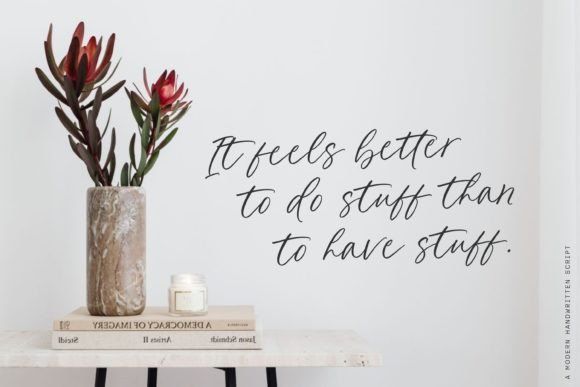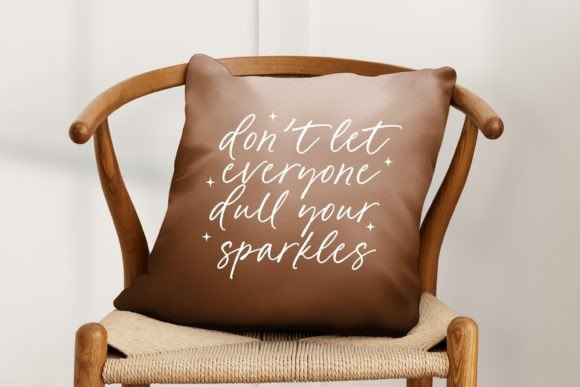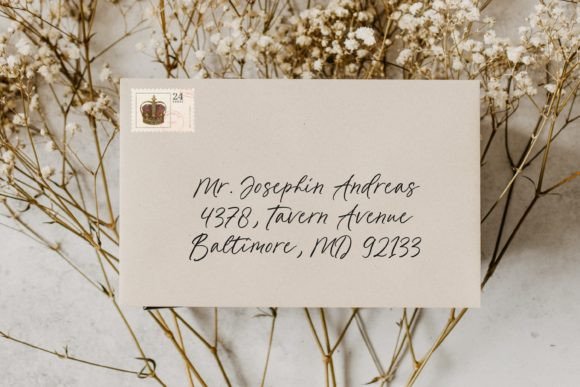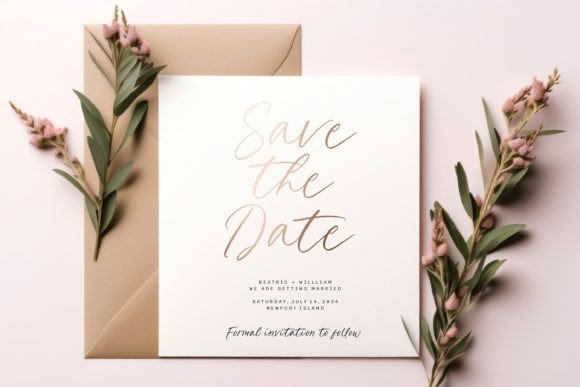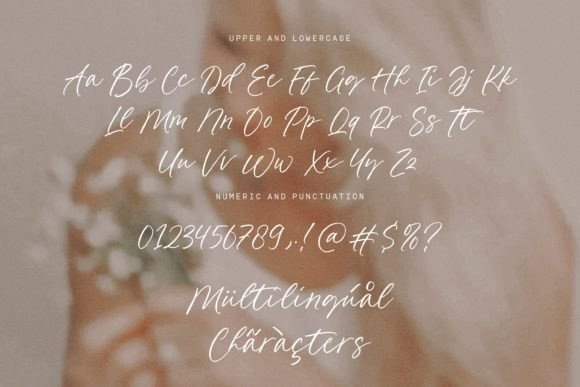
The Dancing Matilda Font: A Modern Handwritten Script to Elevate Your Designs
I’ll never forget the time I was working on a branding project for a trendy new cafe, and I just couldn’t find the right font to capture their playful yet sophisticated vibe. The client wanted something that felt modern and handwritten, but not too casual or over-the-top. That’s when I stumbled upon the Dancing Matilda font, and let me tell you, it was love at first sight! 💕
Crafted with care and attention to detail, Dancing Matilda is a modern handwritten script font that’s perfect for adding a personal touch to your design projects. Its unique character and versatility make it an excellent choice for a range of designs, from logos and branding to invitations and more.
So, what makes Dancing Matilda so special? Here are a few things that I absolutely love about this font:
- ✨ Unique character: Dancing Matilda has a distinct, modern handwritten style that sets it apart from other script fonts.
- ✅ Versatility: This font is incredibly versatile and can be used for a wide range of design projects.
- 💫 Elegant and playful: Dancing Matilda strikes the perfect balance between elegance and playfulness, making it suitable for both formal and informal designs.
Of course, no font is perfect, and there are a few small quirks to be aware of:
- ⚠️ Limited use in very small sizes: As with many script fonts, Dancing Matilda can become a bit tricky to read in very small sizes.
- 🤔 Some letter combinations may require manual kerning: While the font is generally well-spaced, you may need to adjust the kerning for certain letter combinations to achieve optimal results.
- Experiment with OpenType features, such as ligatures and stylistic alternates, to add more flair to your text.
- Explore the font’s glyphs and OpenType features to customize your text.
The Story Behind Dancing Matilda
While the origins of Dancing Matilda might be shrouded in mystery, it’s clear that the font was crafted with a passion for beautiful, modern typography. Imagine a designer who spent countless hours perfecting the flow and rhythm of handwritten script, carefully balancing elegance and playfulness. That’s the kind of love and dedication that’s gone into creating Dancing Matilda.
| Author | Balpirick |
| Is Dancing Matilda suitable for body text? | While Dancing Matilda is a beautiful font, it’s best suited for headlines and short paragraphs. For longer body text, a more traditional font might be more readable. |